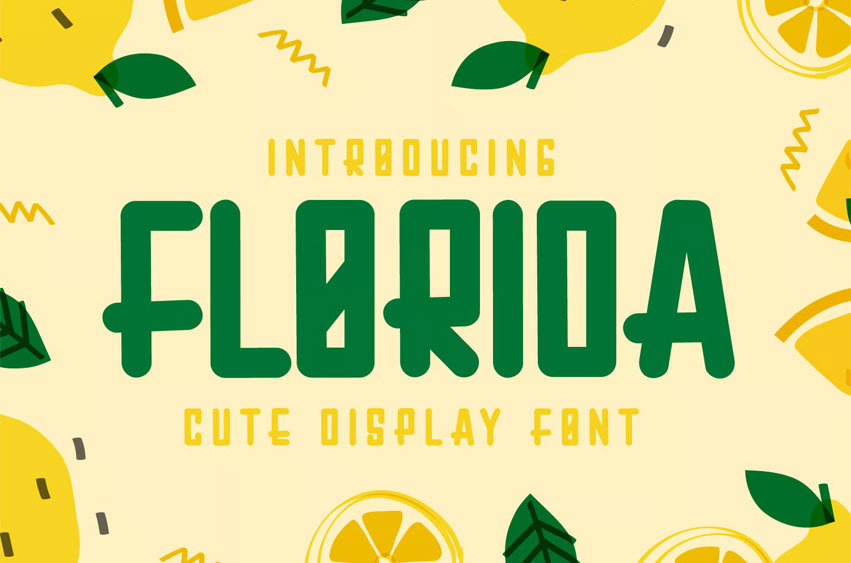
Florida Font is a gorgeous, fresh display font. With very well-rounded and playful characters, this font can fit a wide range of creations.
Try it on labels, name tags, magazines, social media posts, marketing materials, and so much more!